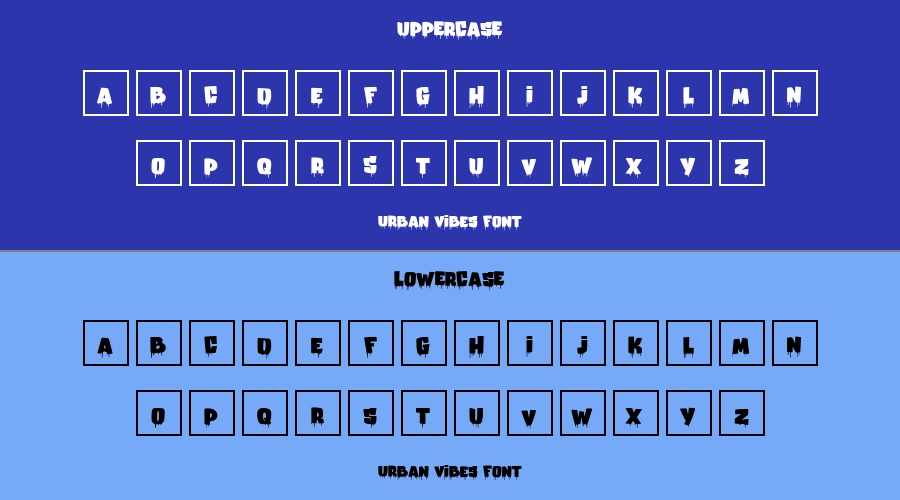
About Urban Vibes Font
Urban Vibes Font embodies typographic excellence through its masterful combination of organic forms and authenticity. Created for architectural plans, this typeface delivers exceptional consistency and application safety across all applications. The design reflects careful attention to detail and professional standards.
Advanced capabilities include distinctive angled joins and versatile terminal characters, giving designers creative control. When used in identification tags, Urban Vibes Font exhibits remarkable language switching. The harmonious balance between stem weight and regulatory compliance sets this typeface apart.